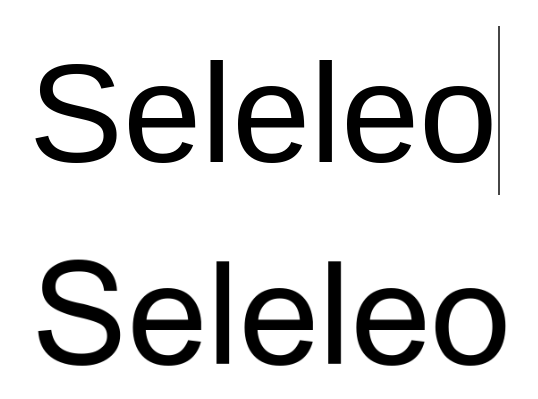
Help finding other versions of Canva Font Garuda
Canva has a font called Garuda but it looks very different to the Garuda on the font download websites. Canva's Garuda looks very similar to Libre Franklin but there are slight differences and I much prefer Canva's Garuda.
Does it come under another name outside of Canva? Thanks in advance
Thanks Ralf but yes and no
Ariel top - Canva's Garuda bottom - very slight differences I know but enough for me to notice every time I see it and that would be a lot lol!
Am I being too picky?